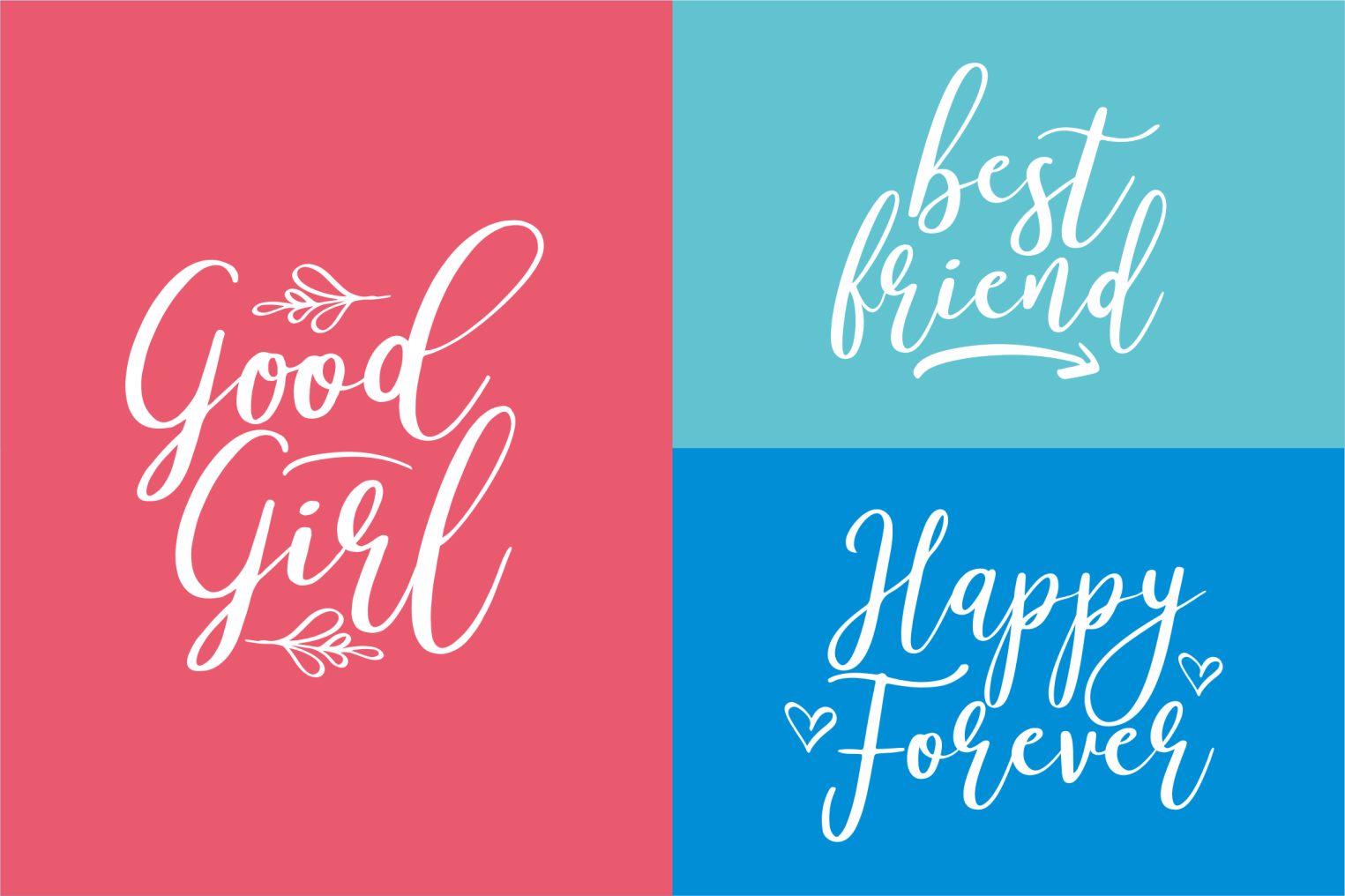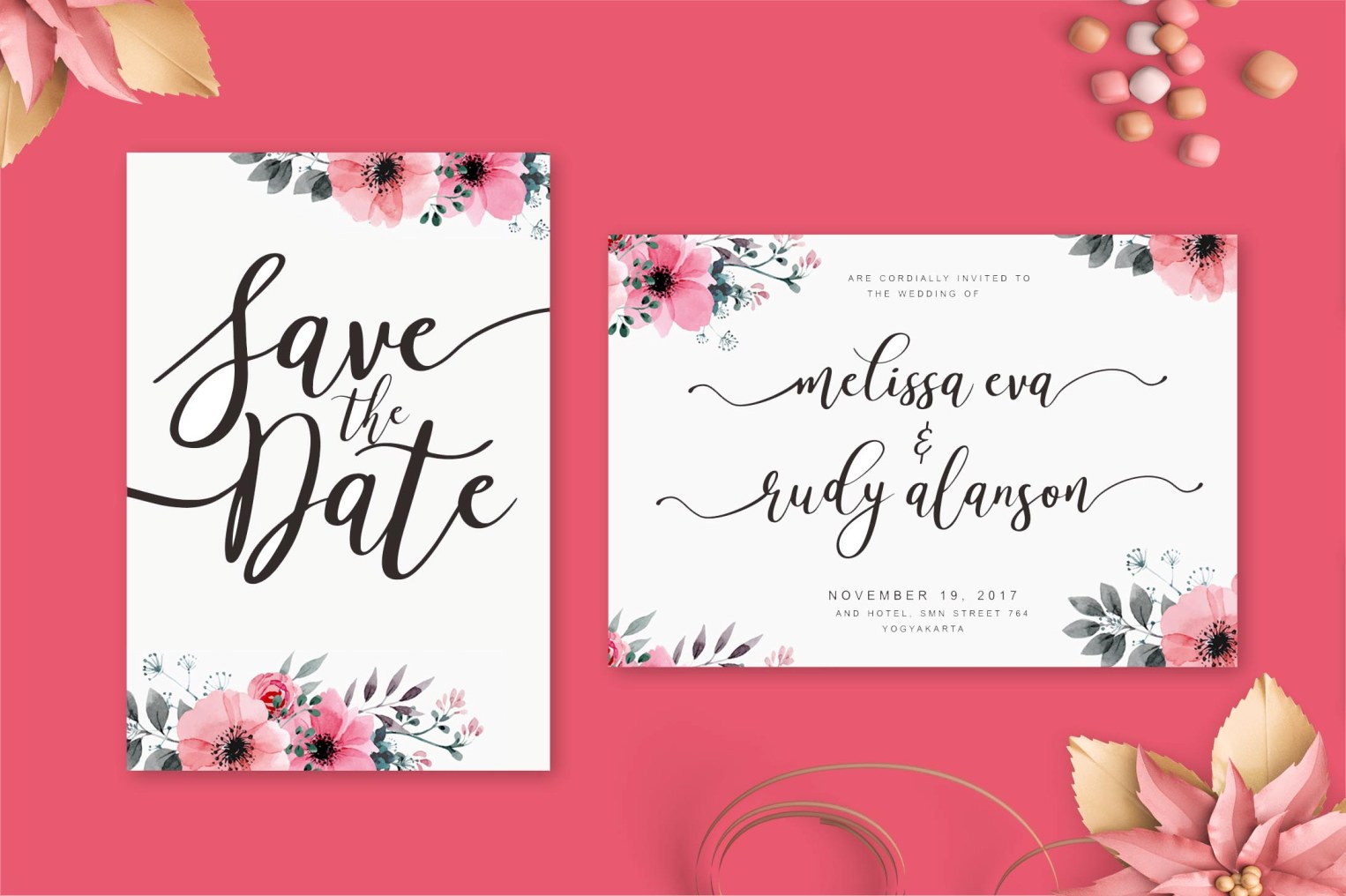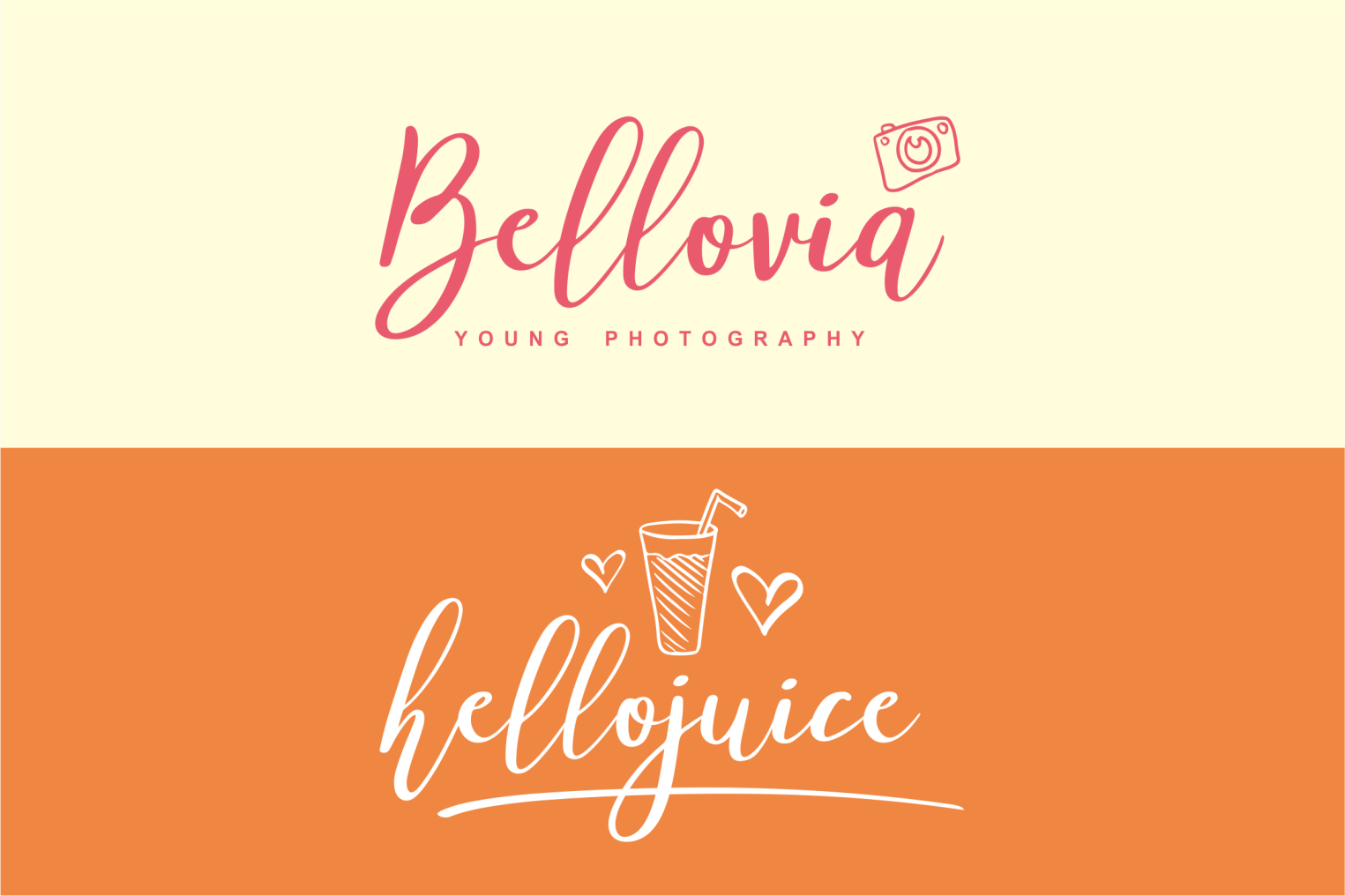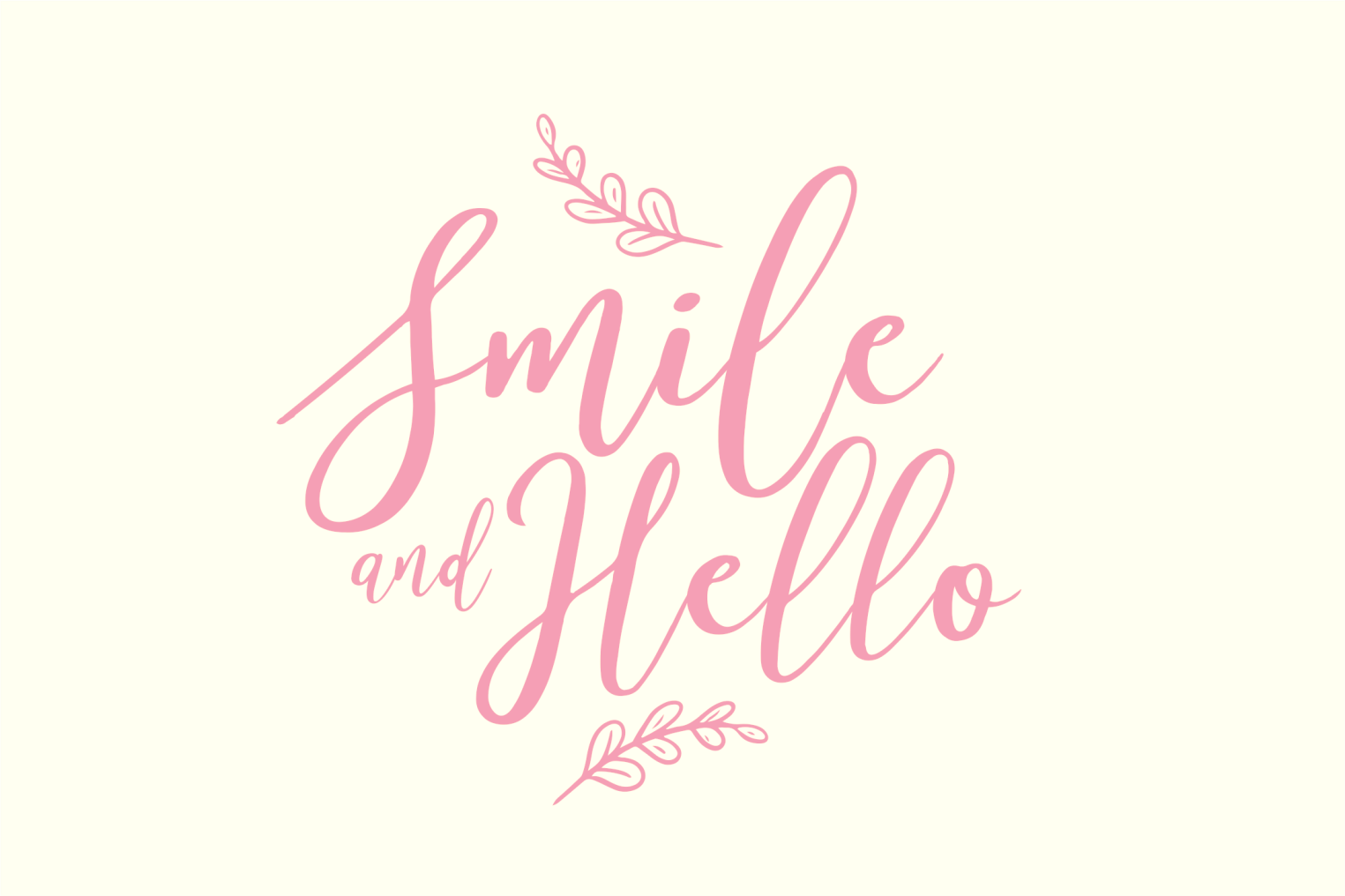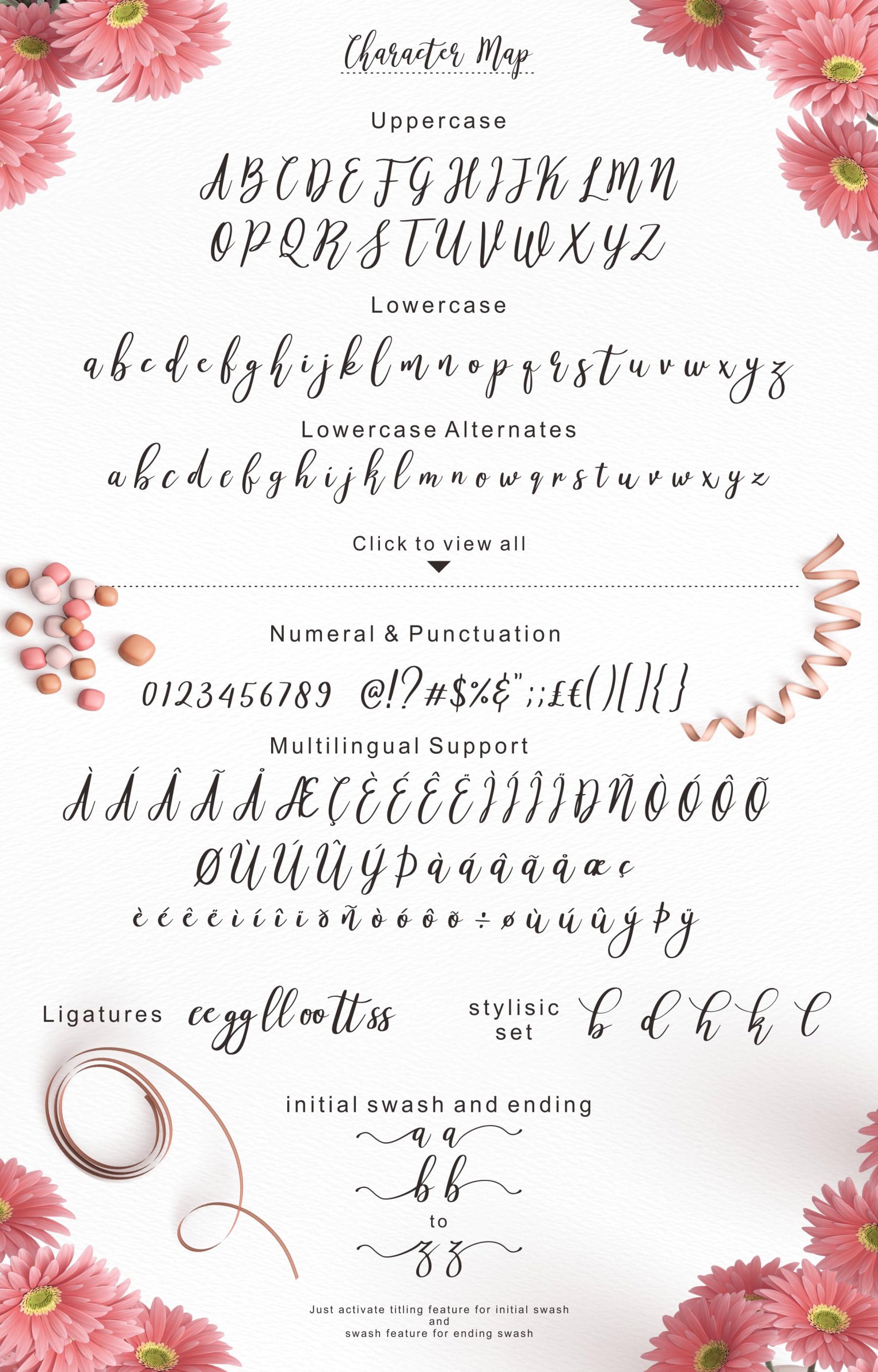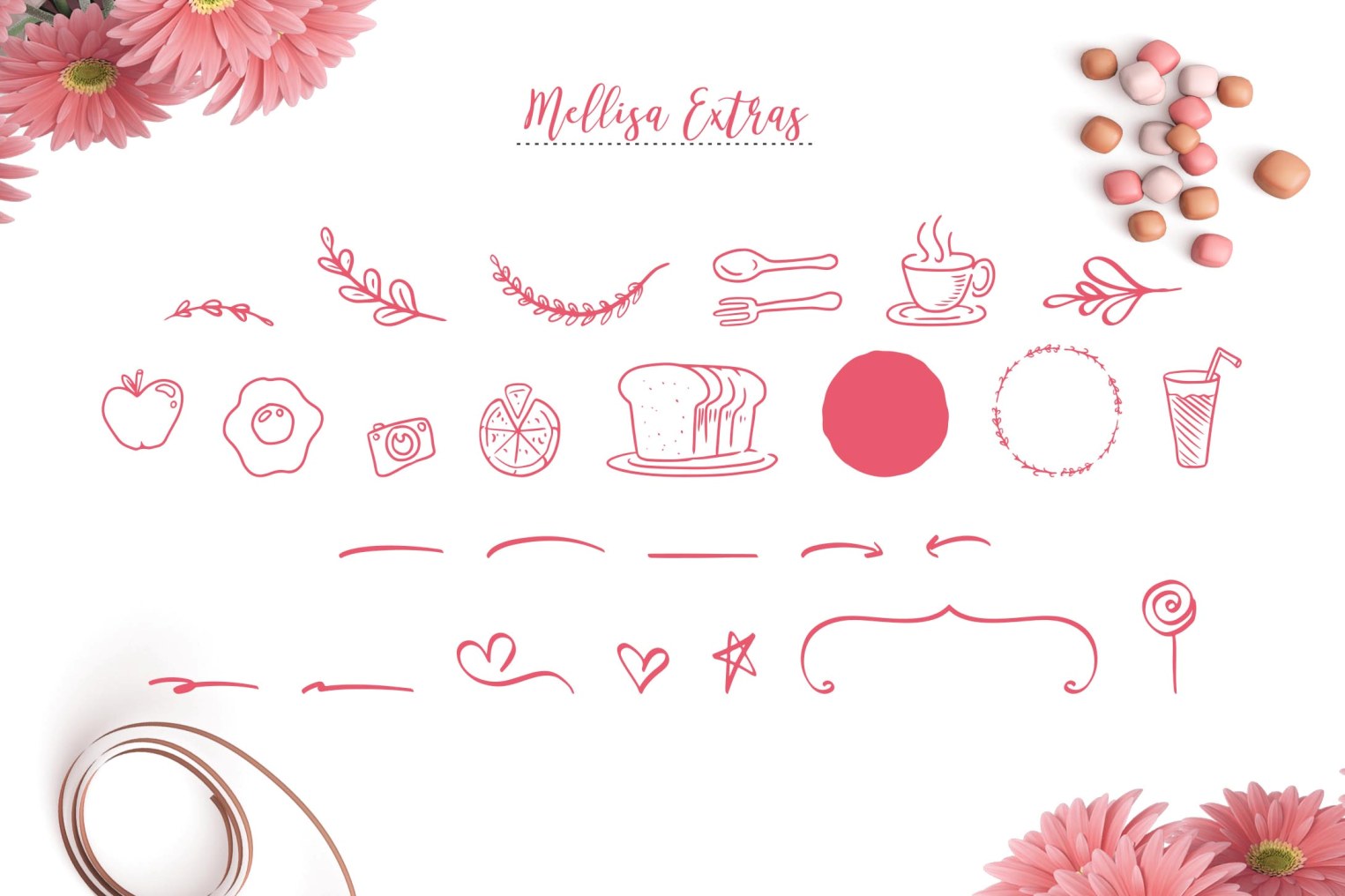
HomeScript FontsMellisa Font Script Fonts Mellisa Font FacebookXPinterestWhatsApp Mellisa Font Poster 2 Mellisa Font Poster 3 Mellisa Font Poster 4 Mellisa Font Poster 5 Mellisa Font Poster 6 Mellisa Font Poster 7 About Mellisa Font Mellisa is a stunning handwritten script font that is packed with lots of swashes. DOWNLOAD NOW People also explored Christmas Bright 11 Font Flip Clock: Black Font Bluesky Font Mock-Up Farmhouse Sign mother lover Haertbel Script Font Inner Vintage Font Halogen HollyLightning Font 297 0 TagsMellisa Font Previous articleEmainell FontNext articleKalisha Font LEAVE A REPLY Cancel reply Comment: Please enter your comment! Name:* Please enter your name here Email:* You have entered an incorrect email address! Please enter your email address here Website: Save my name, email, and website in this browser for the next time I comment. Personal Use Free Rionaldo Angelo Personal Use Free Read more about this font Old Linoleum Personal Use Free Read more about this font Monogram Calligraphy Personal Use Free Read more about this font Aelten Personal Use Free Read more about this font BLOG How to Cut Any Font on Cricut: Convert a Font to SVG (Free) Turn any font into a clean SVG so it cuts crisp on Cricut - a quick 3-step workflow using a free font-to-SVG tool. Top 7 Google Fonts Alternatives for Faster and Privacy-Friendly Web Design (2025) Top 10 Handwritten Fonts That Elevate Your Designs Best Fonts for YouTube Videos: Make Your Thumbnails Stand Out